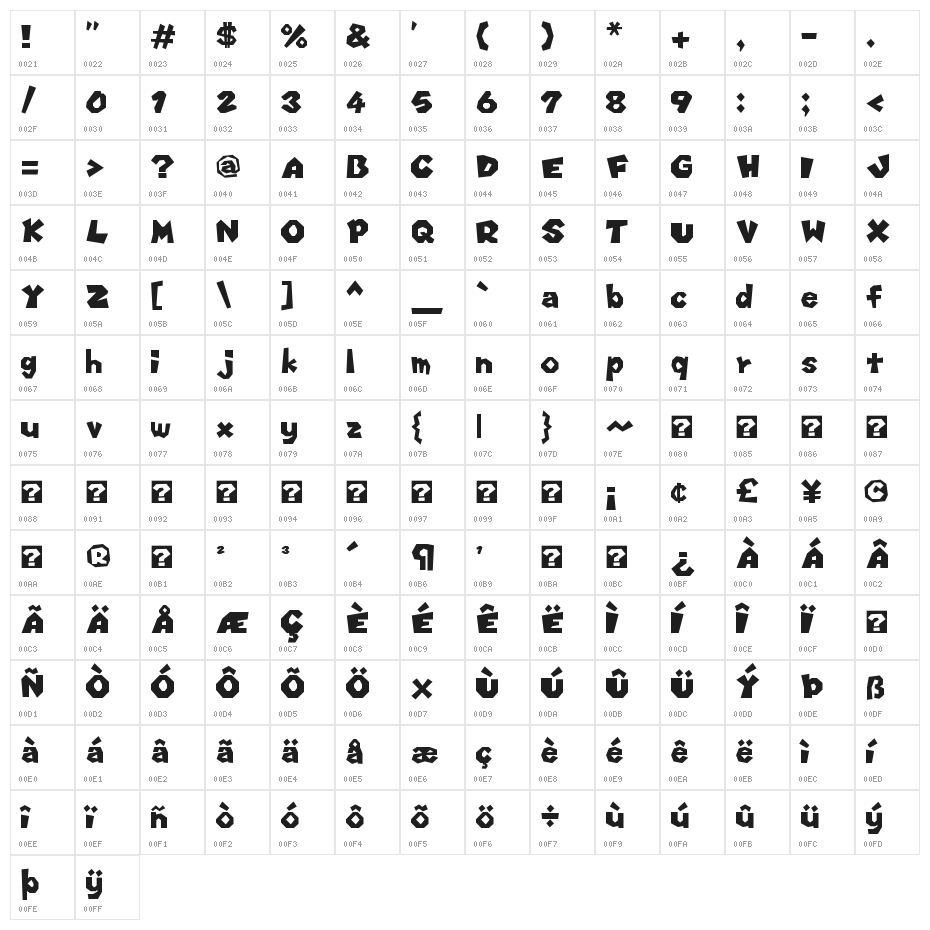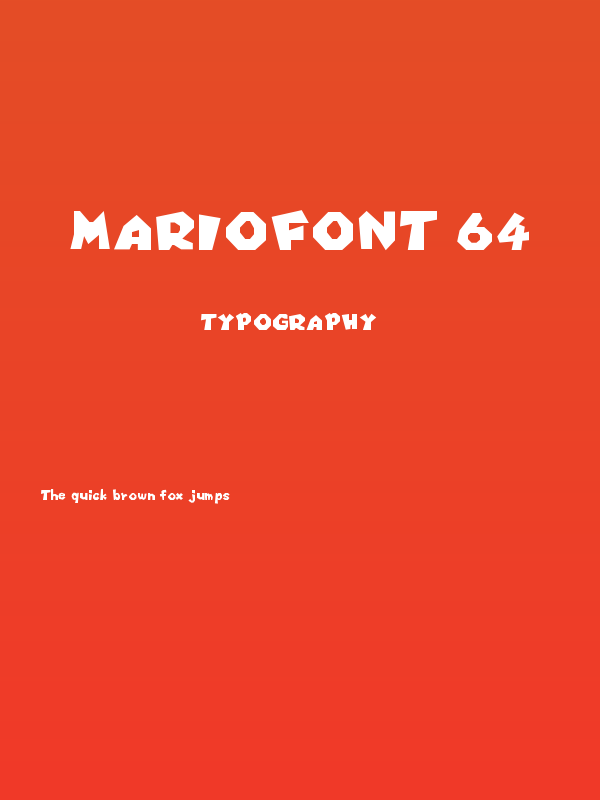
marioFont 64 Font
marioFont 64 Description
This font features a bold and playful design with a strong geometric influence. The characters are constructed with sharp angles and irregular shapes, giving it a dynamic and energetic appearance. The uppercase and lowercase letters maintain a consistent style, with each character exhibiting a unique, almost hand-cut look. The numbers and special characters follow the same design principles, ensuring a cohesive visual experience. This font's distinct style makes it stand out, making it ideal for projects that require a fun and engaging aesthetic.
| Overall Style | Playful, Energetic, Geometric |
| Proposed Projects | Ideal for video game graphics, children's book titles, posters, and playful branding. |